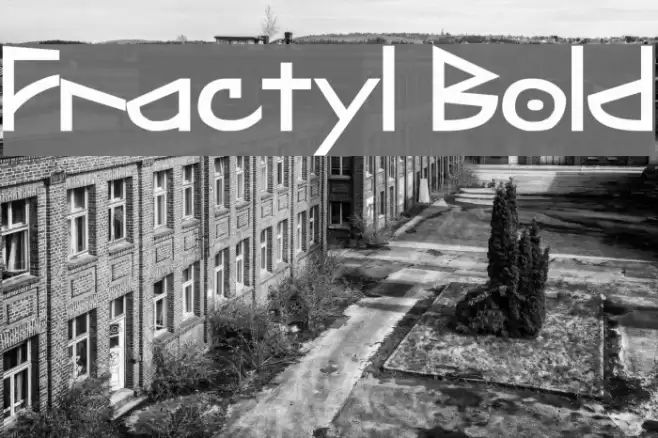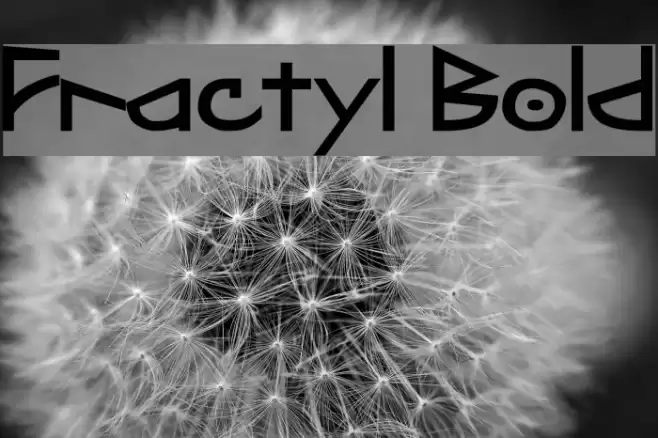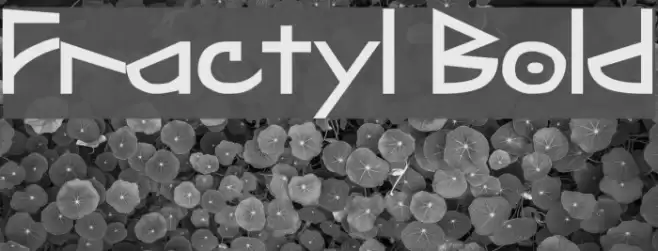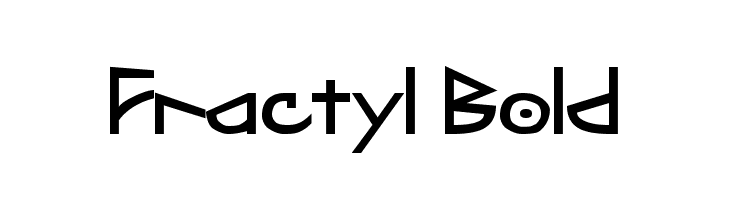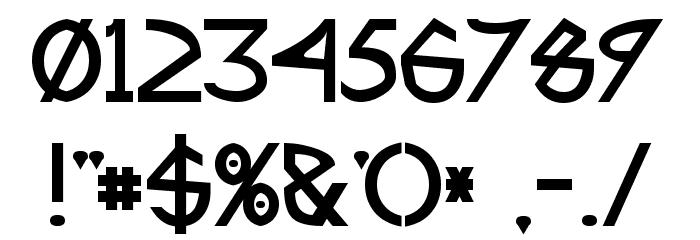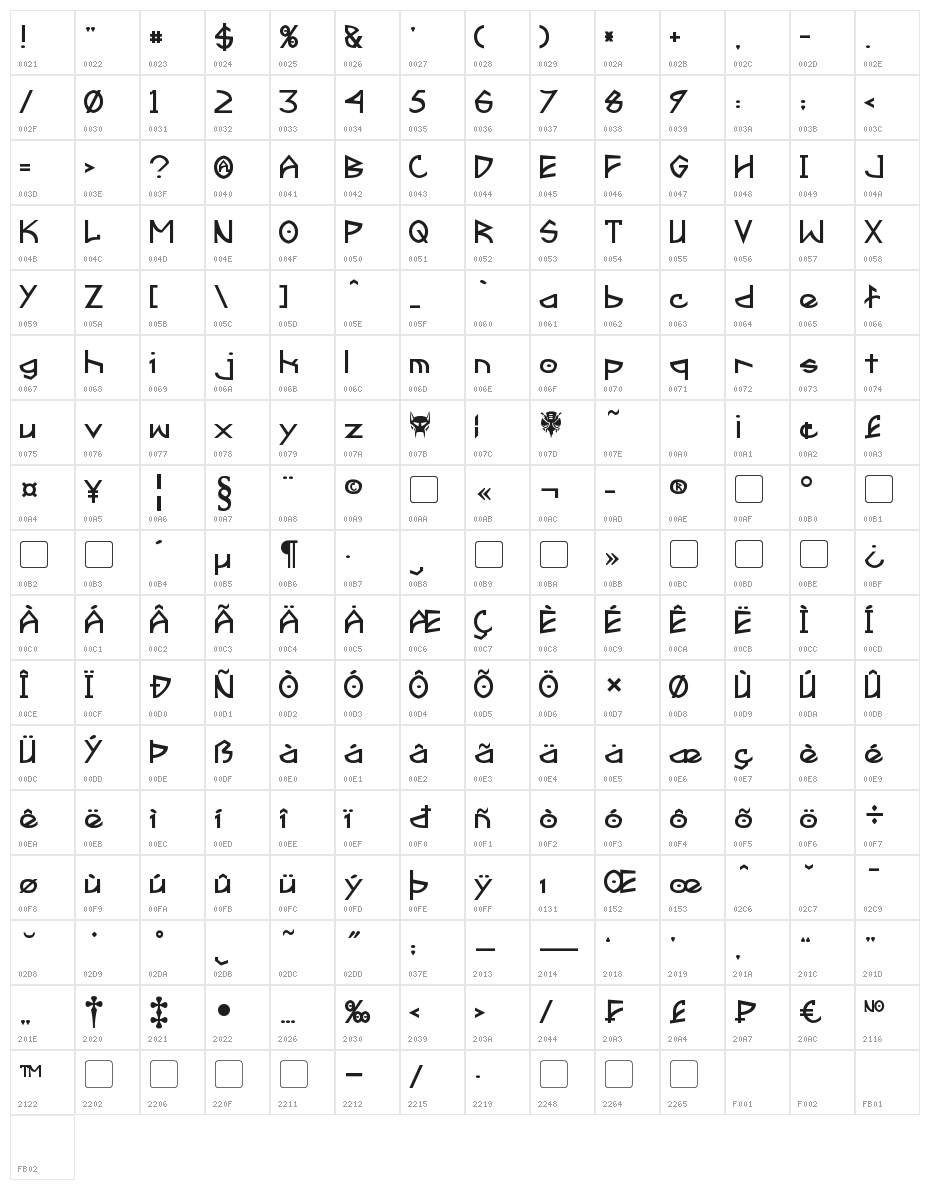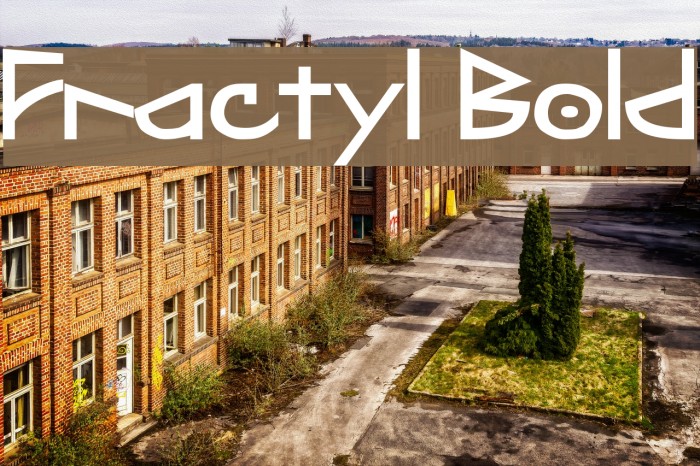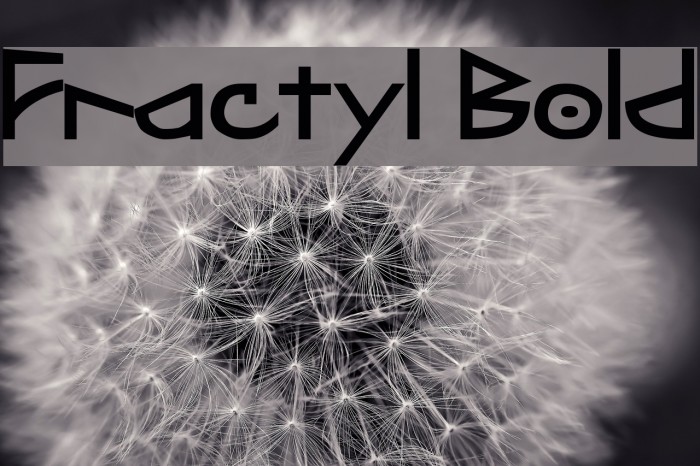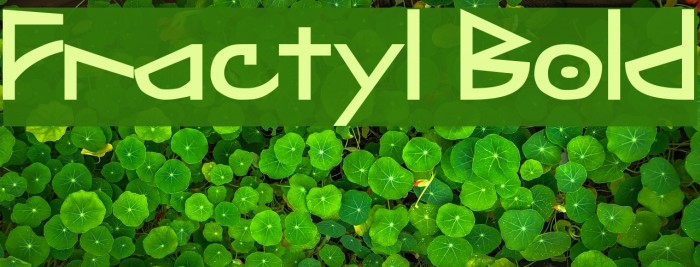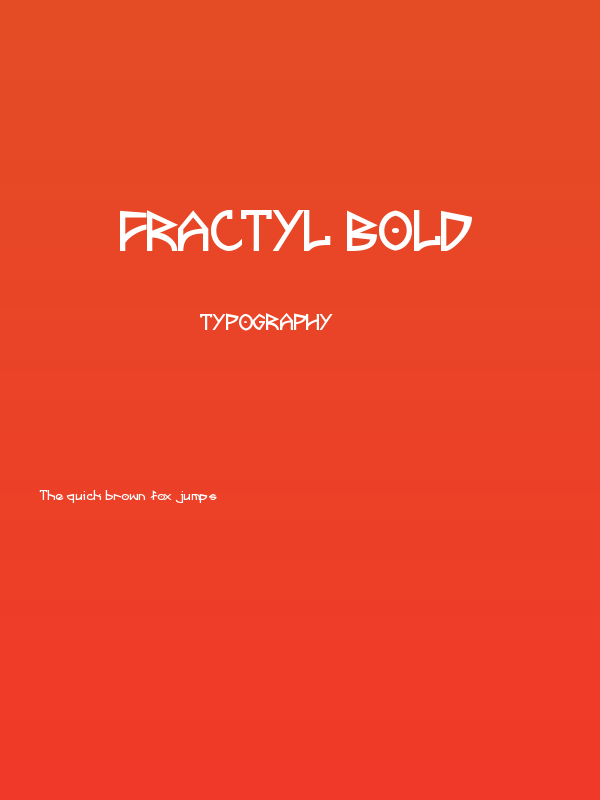
Fractyl Bold Font
Fractyl Bold Description
This font features a bold and dynamic style with sharp, angular lines and geometric shapes. The uppercase letters are particularly striking, with a futuristic and edgy appearance that commands attention. The lowercase letters maintain the same angular aesthetic, creating a cohesive look throughout. Numbers and special characters are designed with the same boldness, ensuring consistency across all text elements. The overall design is modern and distinctive, making it suitable for projects that require a strong visual impact.
A bold, angular font with a futuristic and edgy design from Uncategorized fonts.
- Proposed Projects: Ideal for sci-fi themed projects, modern branding, eye-catching headlines, and creative posters.